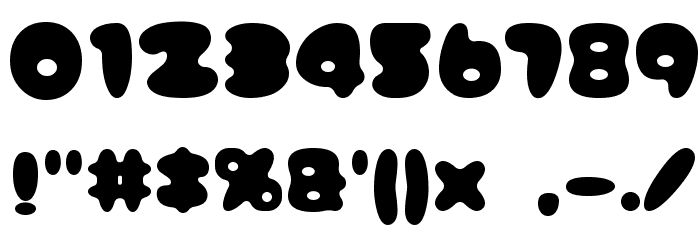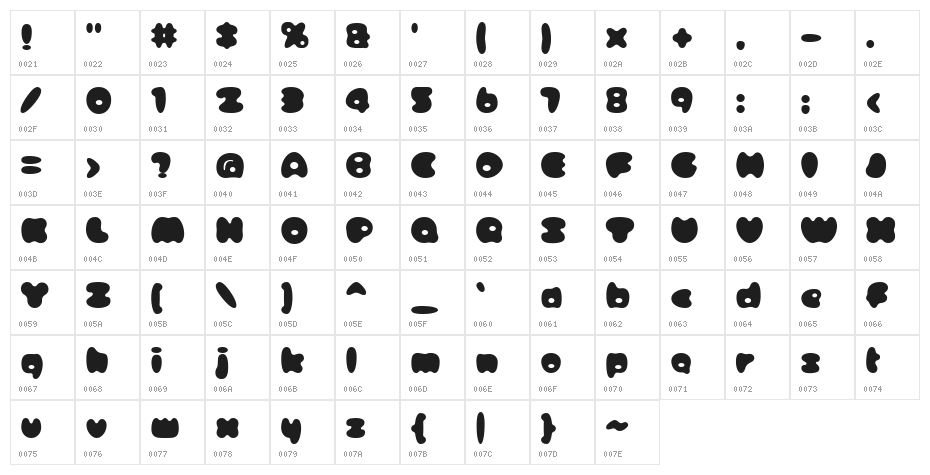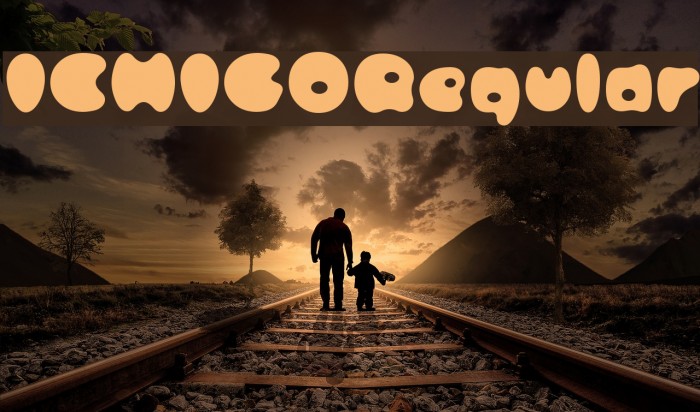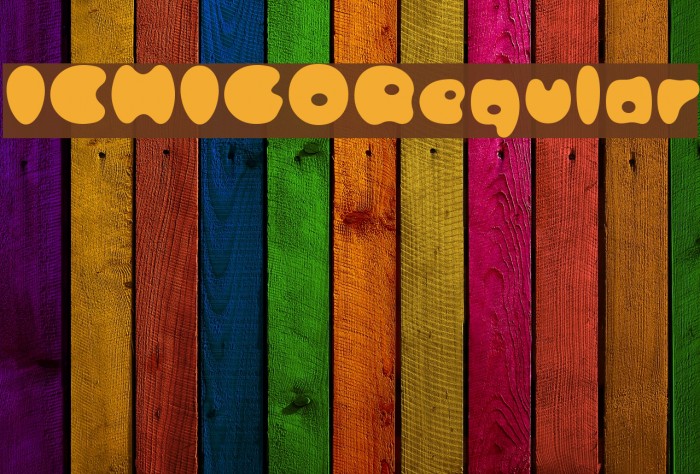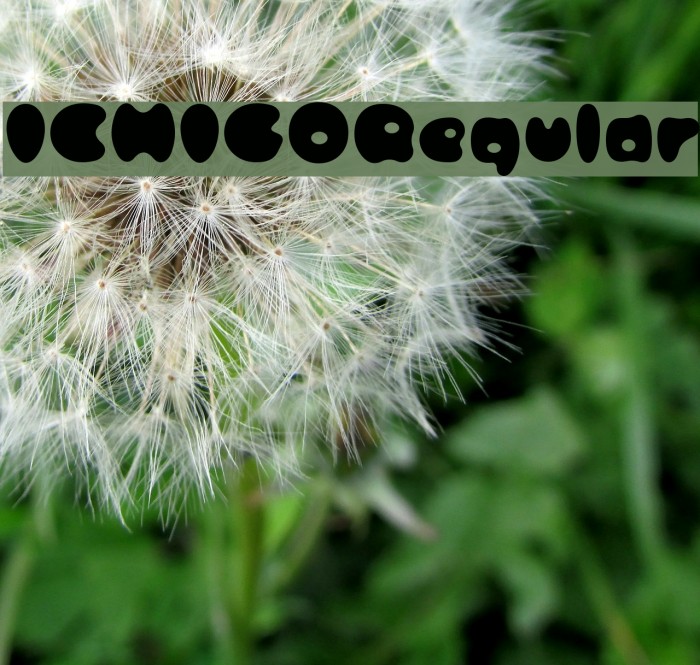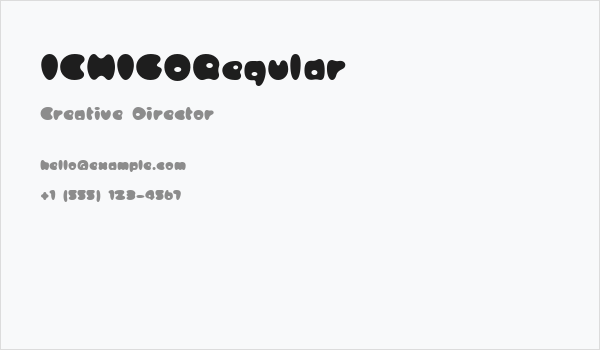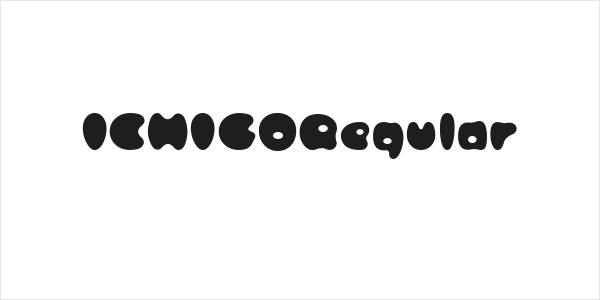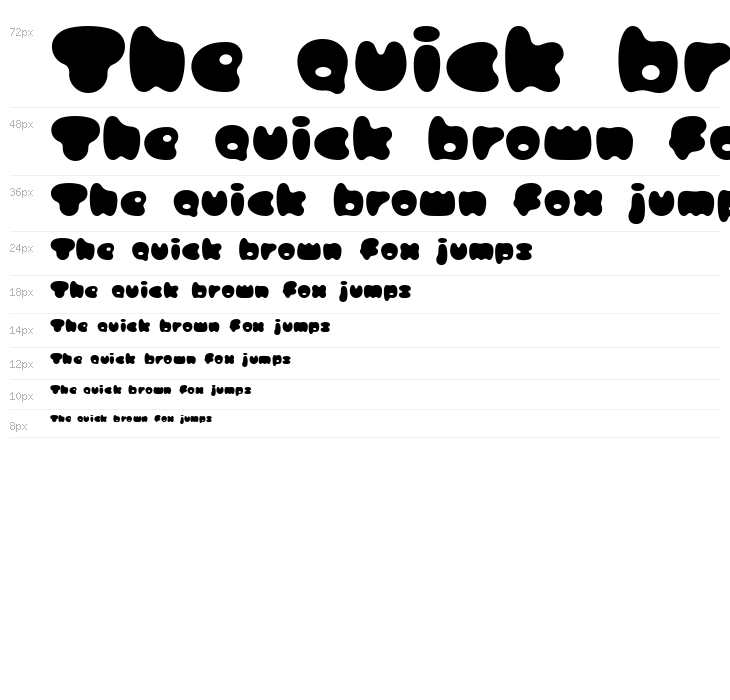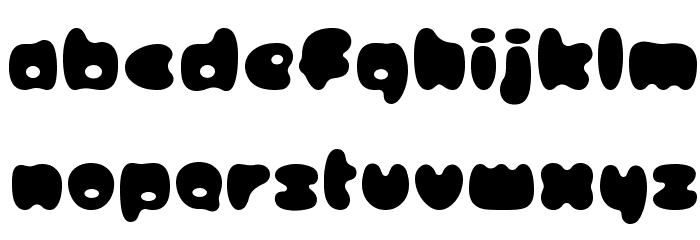
ICHIGORegular Font
ICHIGORegular Description
This playful and bold font features a bubbly, rounded design with thick strokes and a whimsical appearance. Each character is uniquely shaped, giving the font a lively and energetic feel. The letters are closely spaced, enhancing its compact and cohesive look. Its exaggerated curves and soft edges make it stand out, perfect for capturing attention. The font's style is reminiscent of playful, cartoon-like aesthetics, making it suitable for creative and informal applications. Its boldness ensures high visibility, while the rounded forms add a friendly and approachable vibe.